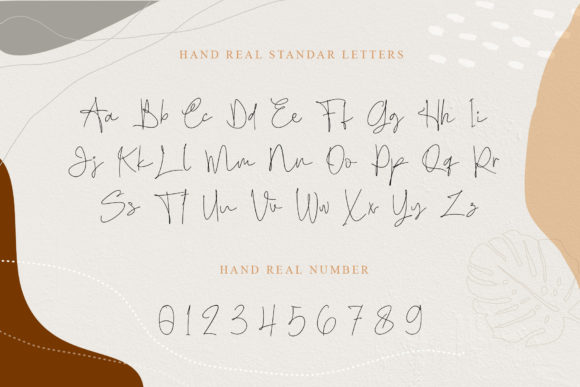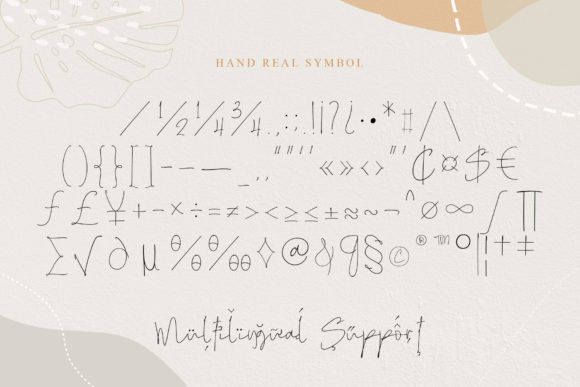
Hand Real Font
db-ku.com - Script & Handwritten -- Hand Real is a thin and fashionable handwritten font. Fall in love with its incredibly versatile style and use it to create gorgeous wedding invitations, beautiful stationary art, eye-catching social media posts, and much more!